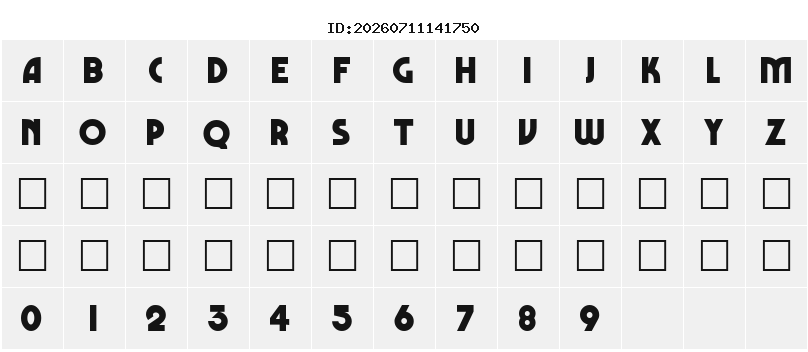
Marbolo Preview
• Font Name: Marbolo
• Full Font Name: Marbolo
About Marbolo.ttf
Marbolo.ttf is a modern, elegant sans-serif font designed for ultimate readability and visual harmony. Perfect for branding, headlines, web design, and print materials.